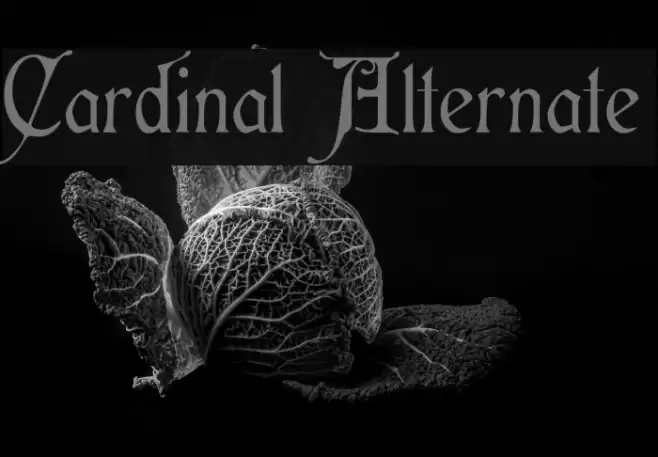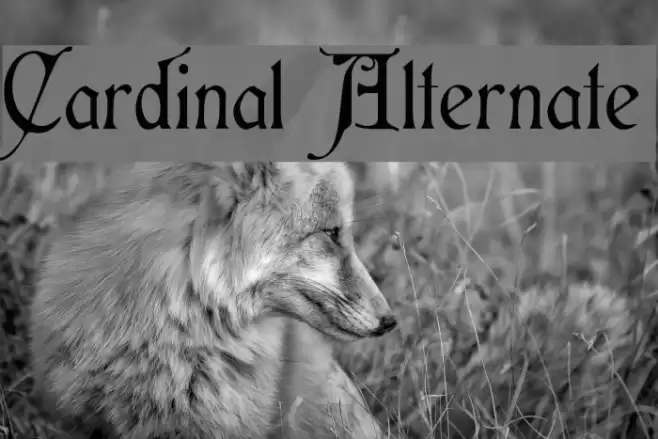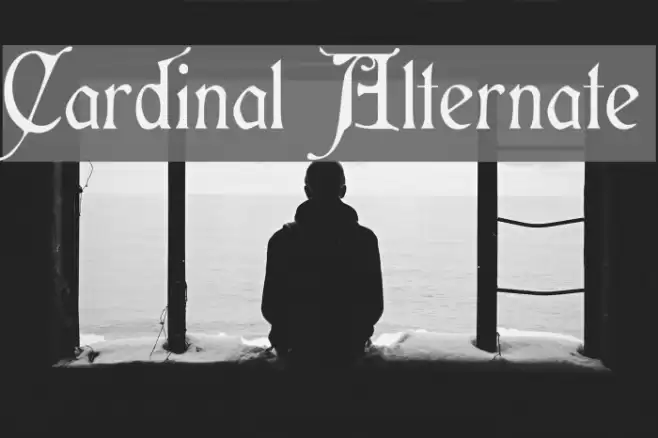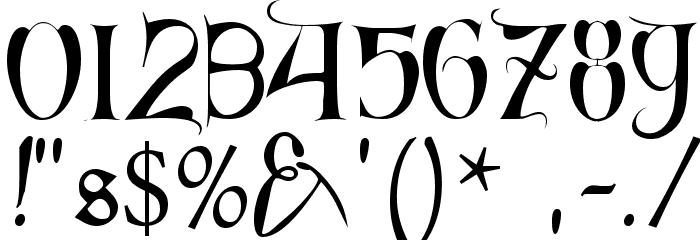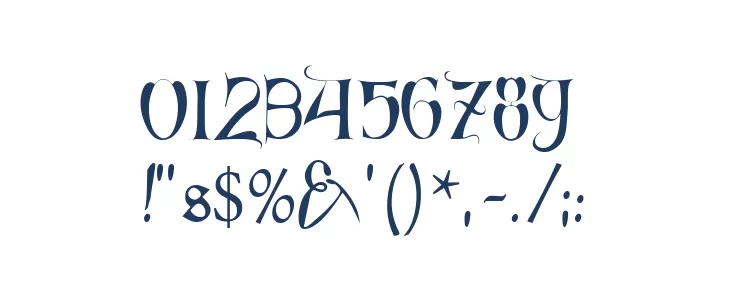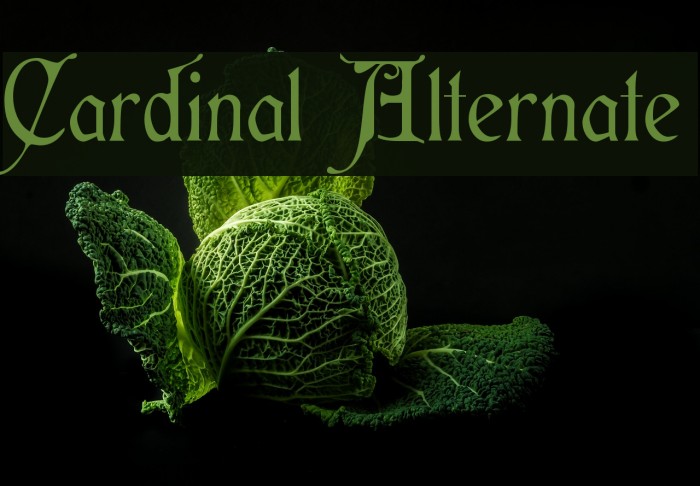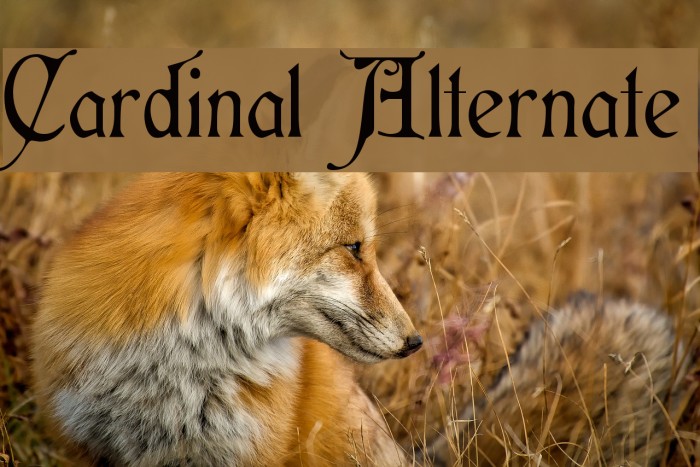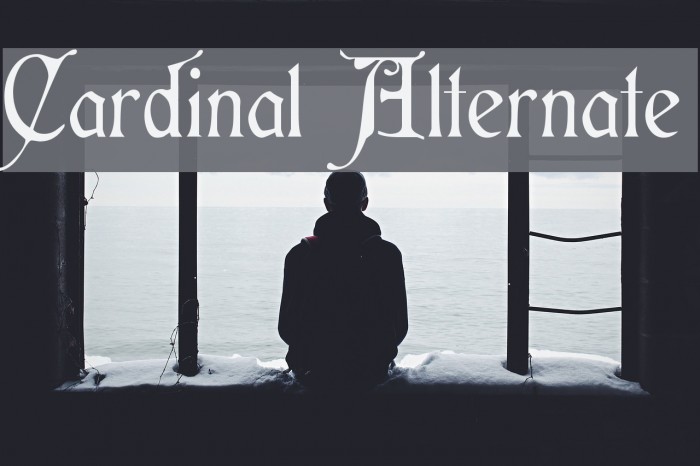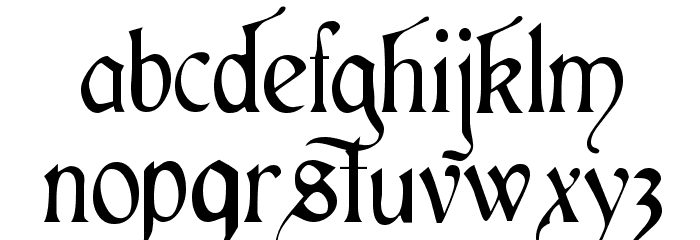
Cardinal Alternate Font
Cardinal Alternate Description
This font features a distinctive and ornate style, reminiscent of medieval script with a modern twist. The uppercase letters exhibit intricate flourishes and sharp serifs, creating a dramatic and elegant appearance. The lowercase letters maintain a consistent style, with unique curves and angles that add a sense of movement and fluidity. Numbers are bold and stylized, complementing the overall aesthetic. Special characters are equally elaborate, ensuring a cohesive look across all glyphs. This font is perfect for projects that require a touch of sophistication and historical charm.
An ornate, medieval-inspired font with intricate flourishes and sharp serifs from Gothic fonts.
- Proposed Projects: Ideal for wedding invitations, historical-themed events, book covers, and branding that requires a classic and elegant touch.
- Overall Style: Vintage
- Use Case: Logos, Headlines, Decorative text